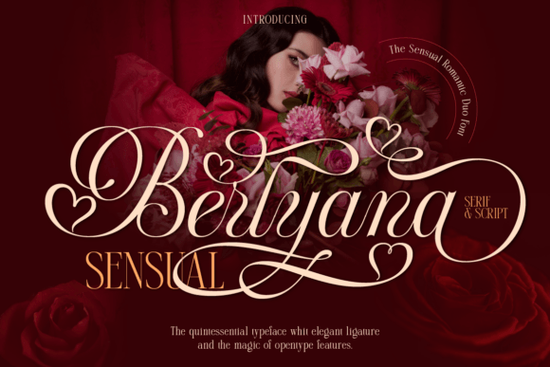
Designers, crafters, and small business owners looking for a unique way to add elegance and romance to their projects might find the Berlyana Sensual Font to be an ideal choice. This font combines the fluidity of script with the timeless appeal of serif styles, making it perfect for a wide range of creative applications. Whether you're working on wedding invitations, branding materials, or print-on-demand products, Berlyana Sensual offers a refined look that stands out.
The Berlyana Sensual Font is designed with attention to detail, featuring alternates that enhance its sensuality and romantic feel. These variations allow for more expressive typography, giving your designs a personal touch. The font’s nostalgic undertones make it especially appealing for projects that aim to evoke emotion and charm.
What Makes Berlyana Sensual Unique?
Unlike many fonts that stick to a single style, Berlyana Sensual blends two distinct typographic elements: script and serif. This combination creates a balance between creativity and formality, making it versatile enough for both casual and professional use. The script portion adds a soft, flowing quality, while the serif elements bring structure and sophistication.
For those who enjoy experimenting with typography, this font provides a range of options to customize your designs. The alternates included in the set allow for subtle variations that can make your work feel more dynamic and engaging. Whether you're creating a logo, a greeting card, or a social media post, Berlyana Sensual can help you achieve a polished, elegant result.
Best Uses for Berlyana Sensual Font
This font works well in a variety of design contexts. It’s particularly popular among those who create wedding-related content, such as invitations, signage, and thank-you cards. Its romantic and sophisticated appearance also makes it a great fit for fashion brands, boutique businesses, and artisanal products that aim to convey luxury and refinement.
Crafters and print-on-demand sellers often use Berlyana Sensual for items like t-shirts, mugs, and stationery. The font’s visual appeal ensures that these products stand out in a competitive market. For small businesses, incorporating this font into branding materials can help establish a memorable and cohesive identity.
Whether you're a designer looking for fresh inspiration or a small business owner seeking a distinctive visual identity, Berlyana Sensual Font is a valuable addition to your toolkit. Its blend of elegance and romance makes it a standout choice for anyone who wants to elevate their typography without compromising on style.
Remember, the right font can make a big difference in how your message is received. With Berlyana Sensual, you’re not just choosing a typeface you’re selecting a tool that can help express emotion, personality, and artistry in every design.